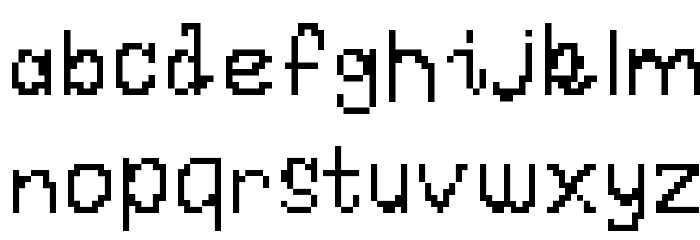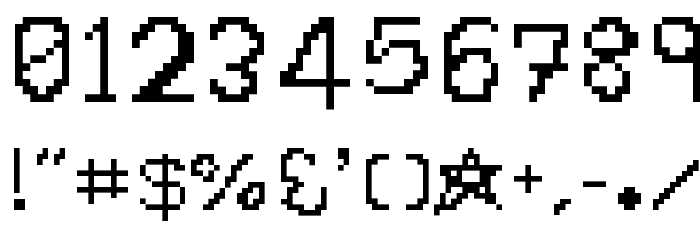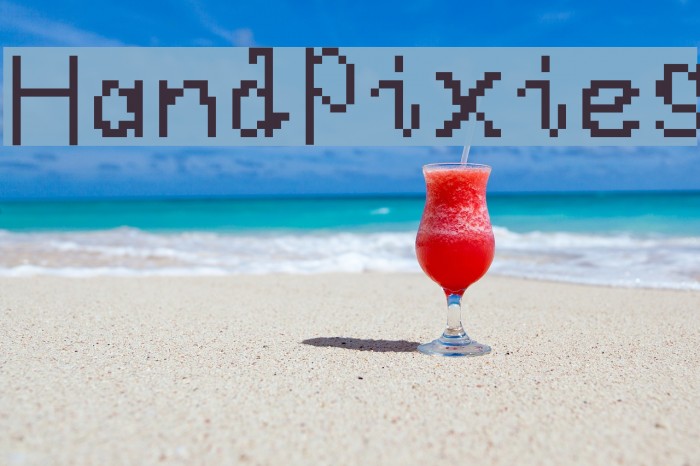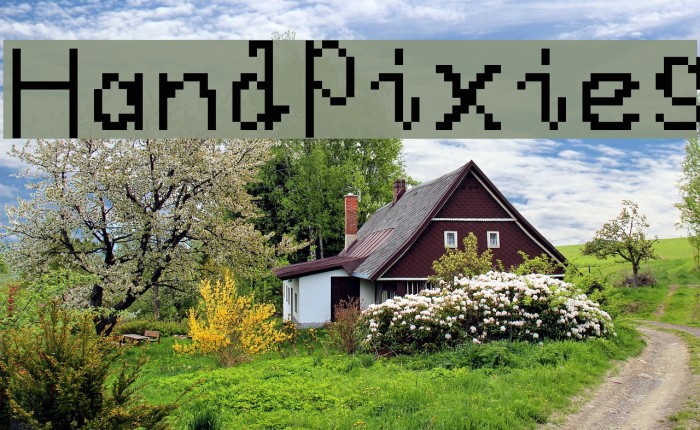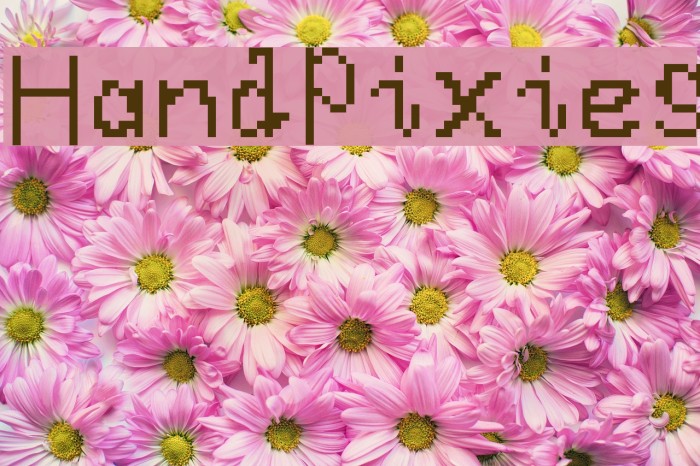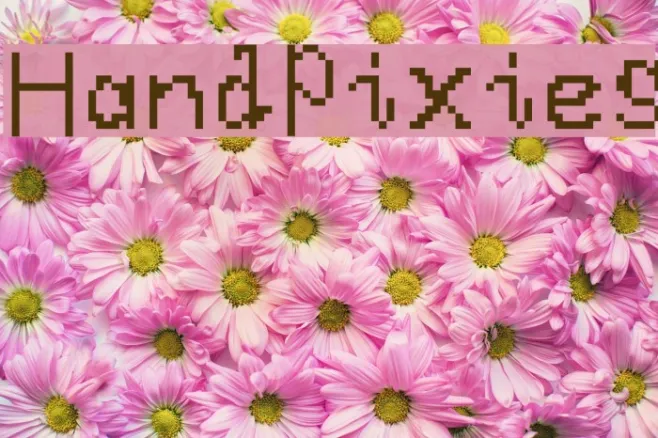
HandPixies Font
This font features a pixelated, hand-drawn style that evokes a sense of nostalgia and playfulness. Each character is composed of small, square blocks, giving it a digital, retro appearance reminiscent of early computer graphics or video games. The uppercase and lowercase letters maintain a consistent height, while the numbers and special characters follow the same pixelated theme. The overall design is simplistic yet charming, making it suitable for creative and informal projects. The font's unique style can add a touch of whimsy and fun to any design, while still remaining legible and clear.
A pixelated, hand-drawn font with a nostalgic, retro vibe.
- Proposed Projects: Ideal for video game design, retro-themed posters, digital art projects, and playful branding.
- Overall Style: Retro, Playful